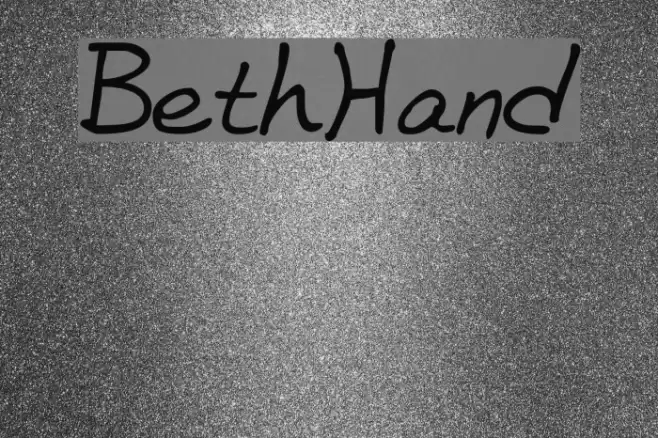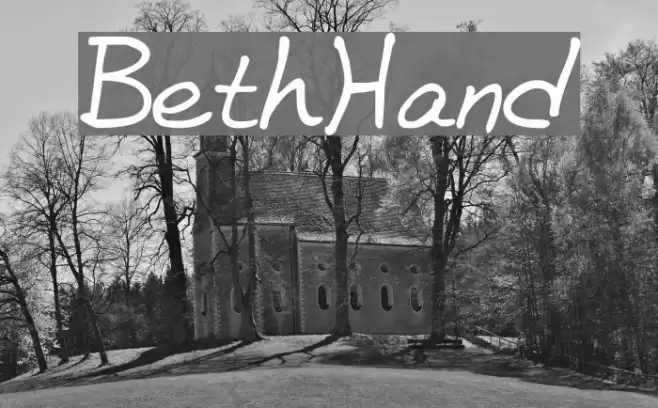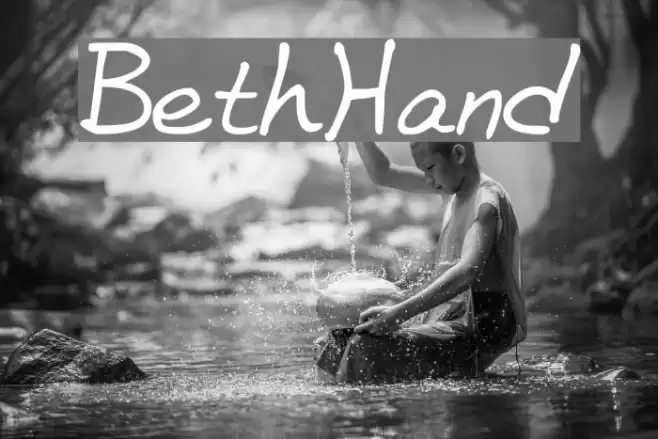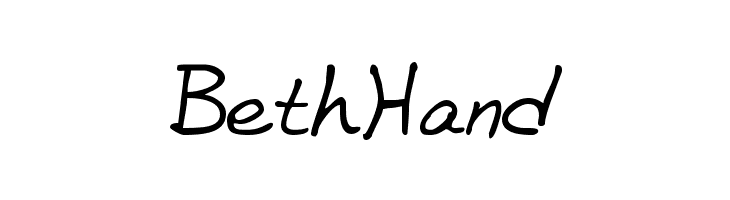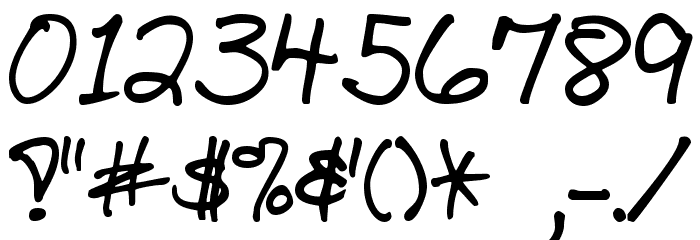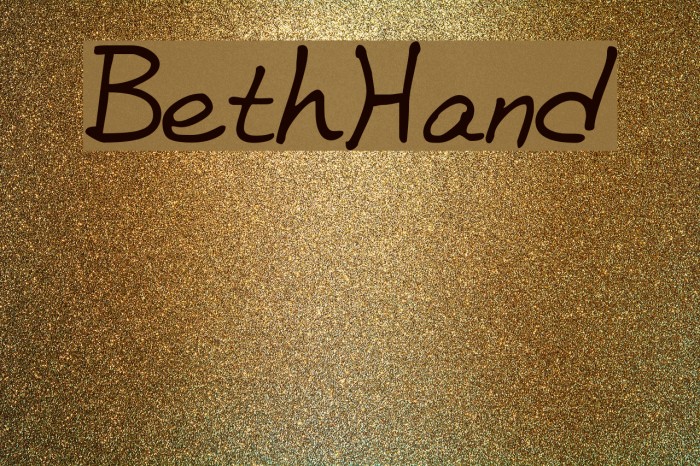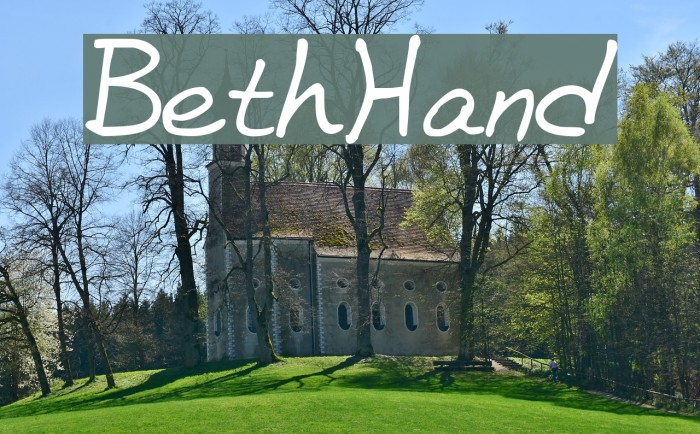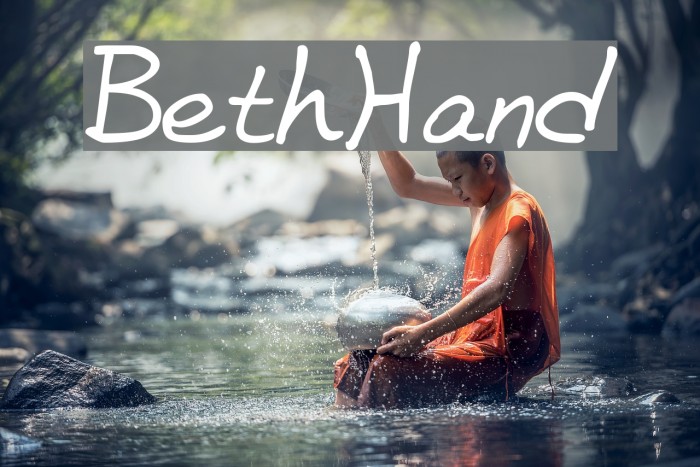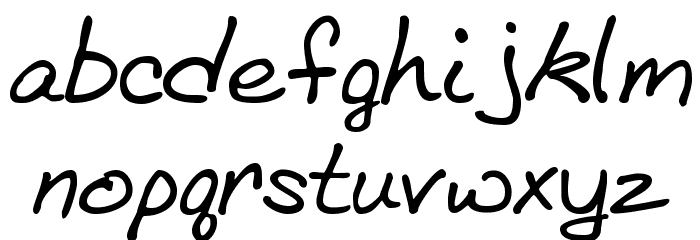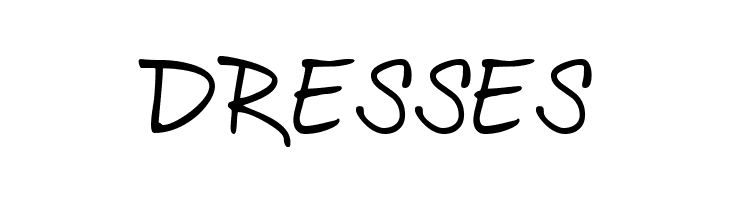
BethHand Font
BethHand Description
This font exhibits a casual, handwritten style with a playful and informal appearance. The letters are slightly slanted, giving it a dynamic and lively feel. The strokes are smooth and consistent, with rounded edges that enhance its approachable and friendly character. The uppercase and lowercase letters maintain a cohesive look, while the numerals and special characters complement the overall design. This font is well-suited for projects that require a personal touch or a relaxed vibe.
A casual, handwritten font with a playful and informal style from Handwritten fonts.
- Proposed Projects: Ideal for greeting cards, personal invitations, casual branding, and social media graphics.
- Overall Style: Casual
- Use Case: Headlines, Informal text, Personal projects